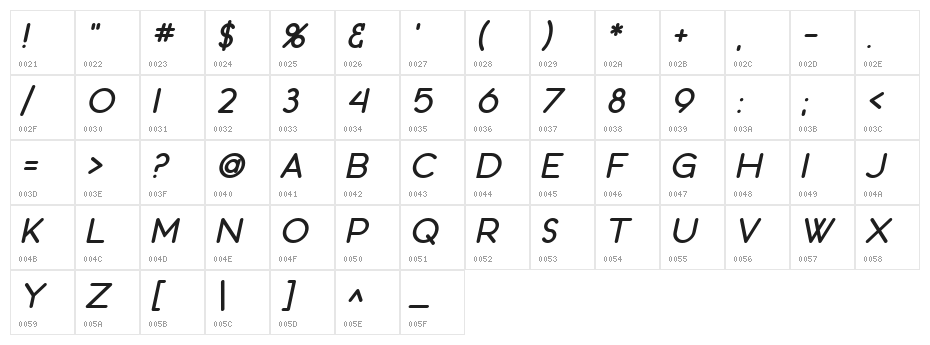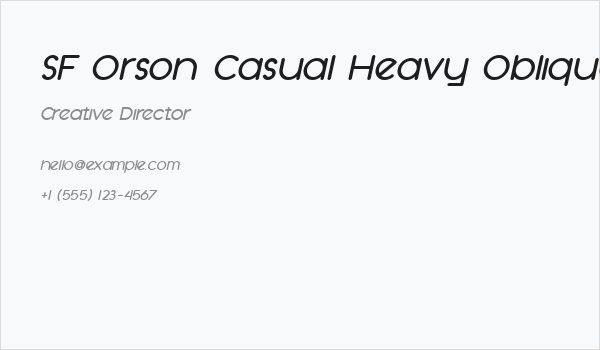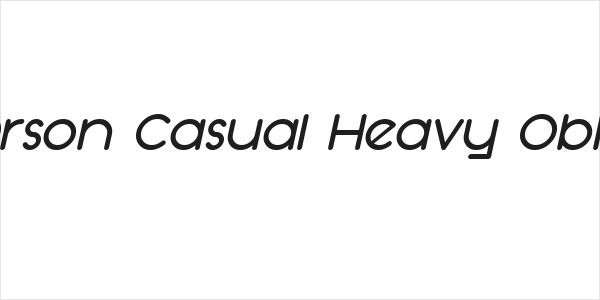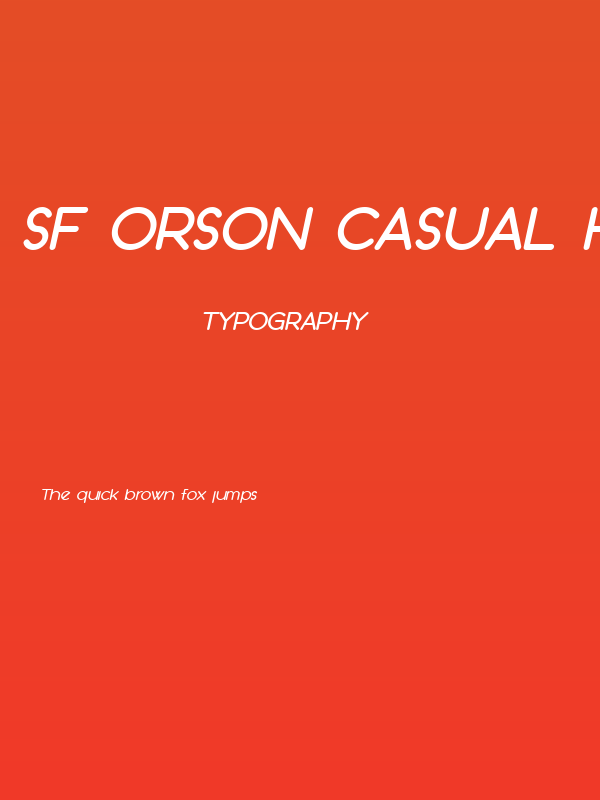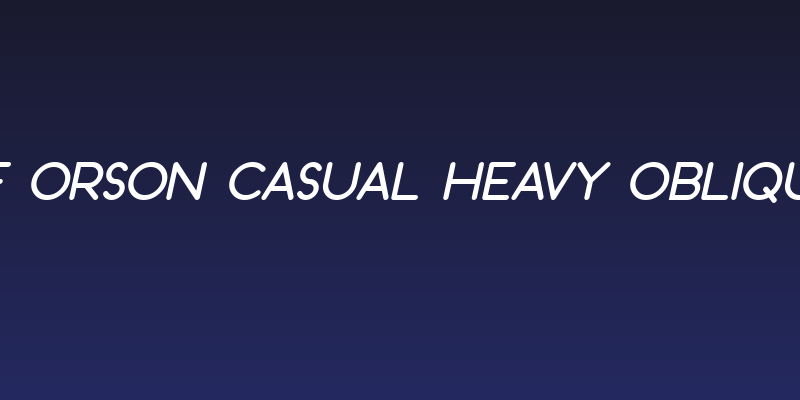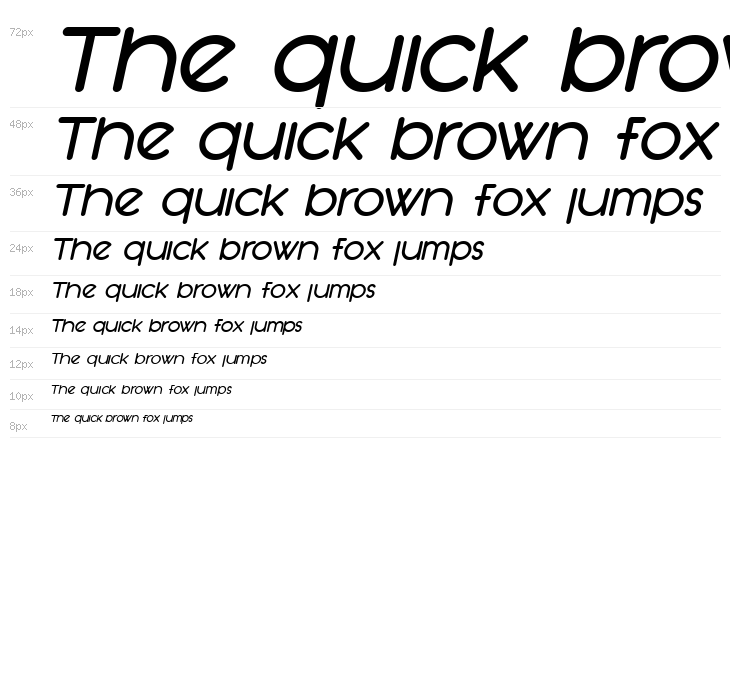
SF Orson Casual Heavy Oblique Font
SF Orson Casual Heavy Oblique Description
This font features a casual and dynamic style with a heavy oblique slant, giving it a sense of motion and energy. The characters are bold and rounded, with a smooth flow that enhances readability while maintaining a playful and informal appearance. The uppercase and lowercase letters are well-proportioned, and the numerals are distinct and clear. Special characters are included, adding versatility for various design needs. The overall design is modern and approachable, making it suitable for a wide range of creative projects.
| Proposed Projects | Ideal for branding, advertising, posters, and any project requiring a lively and informal touch. |